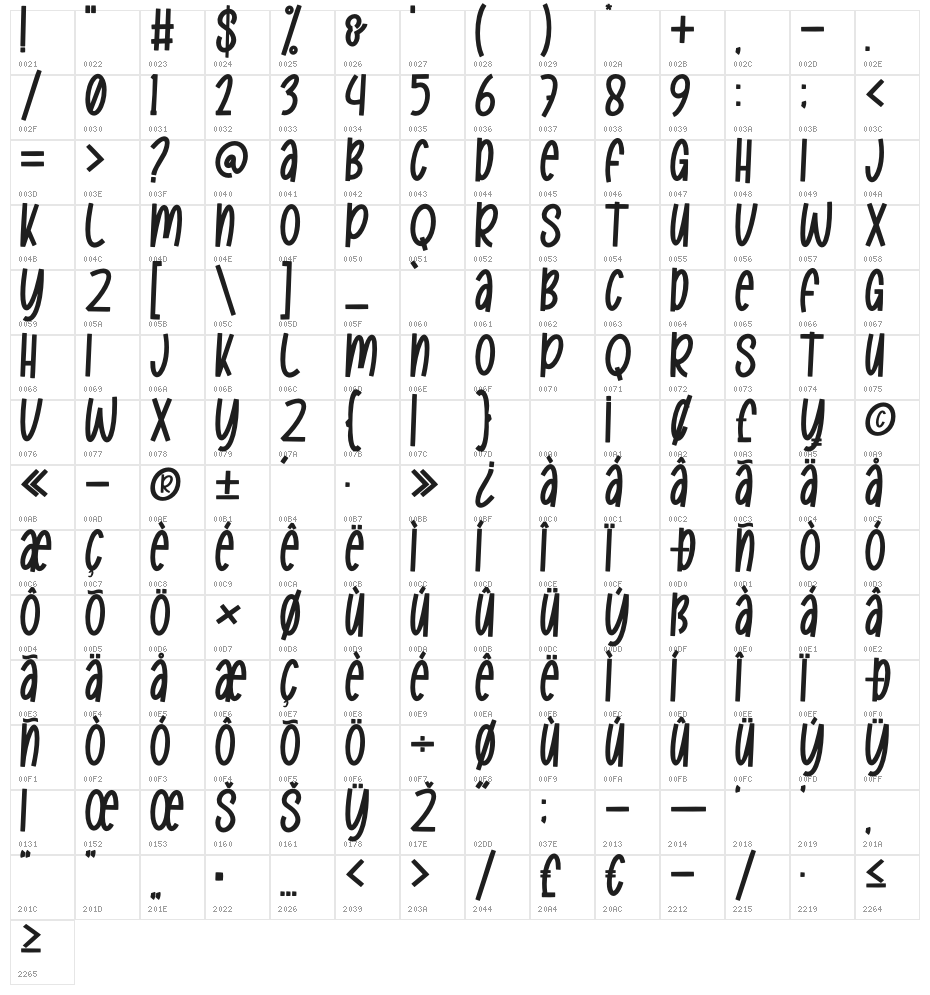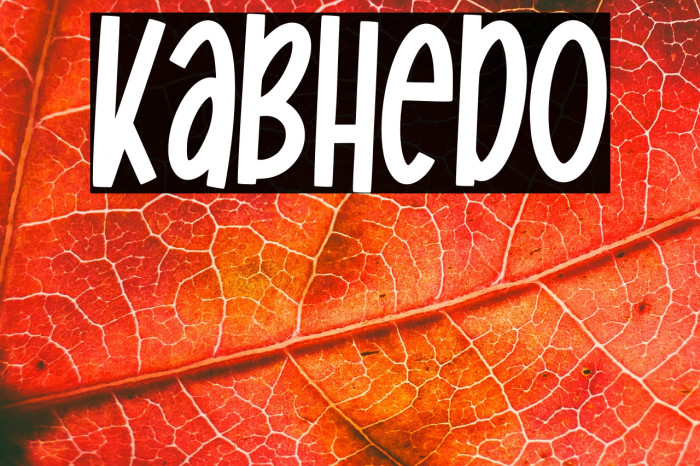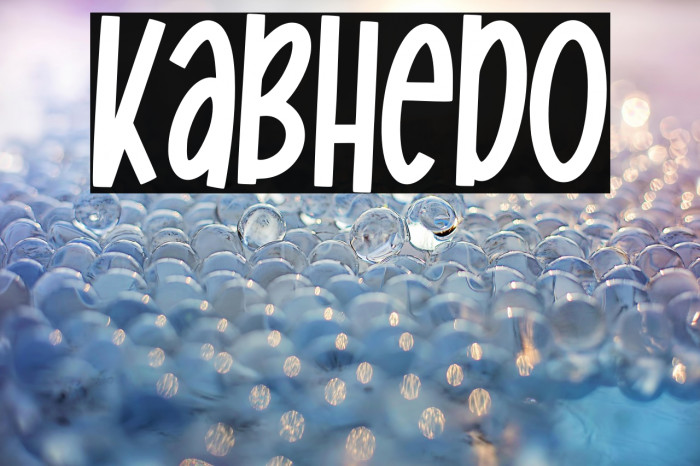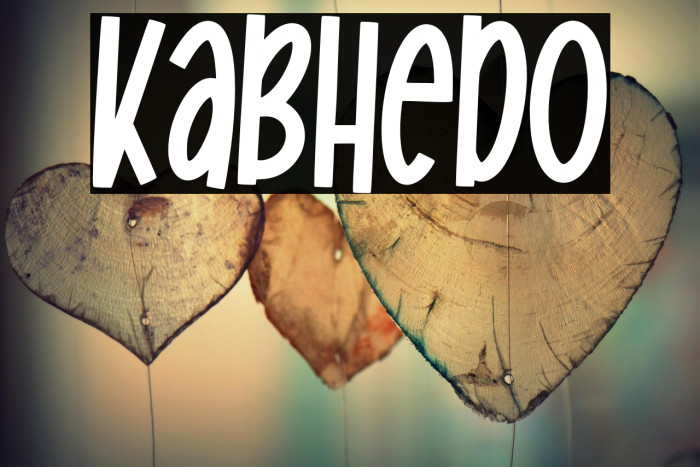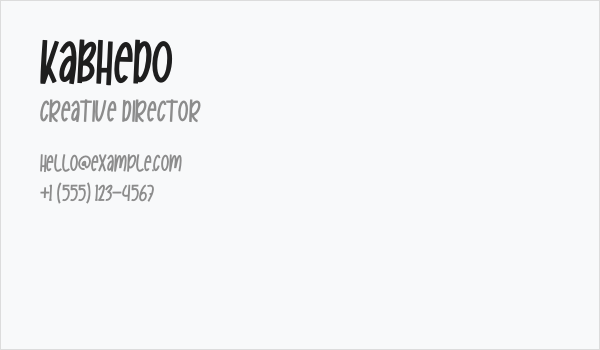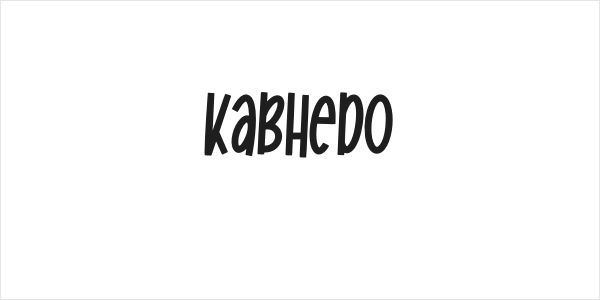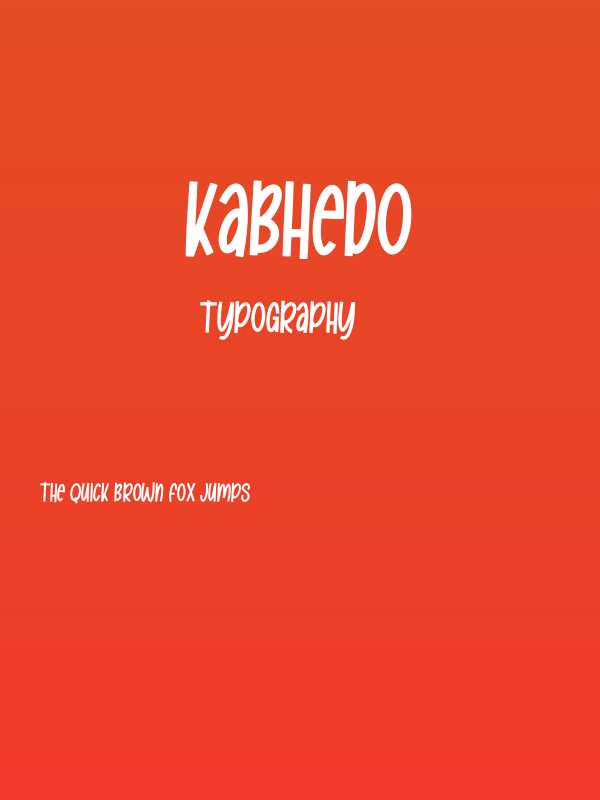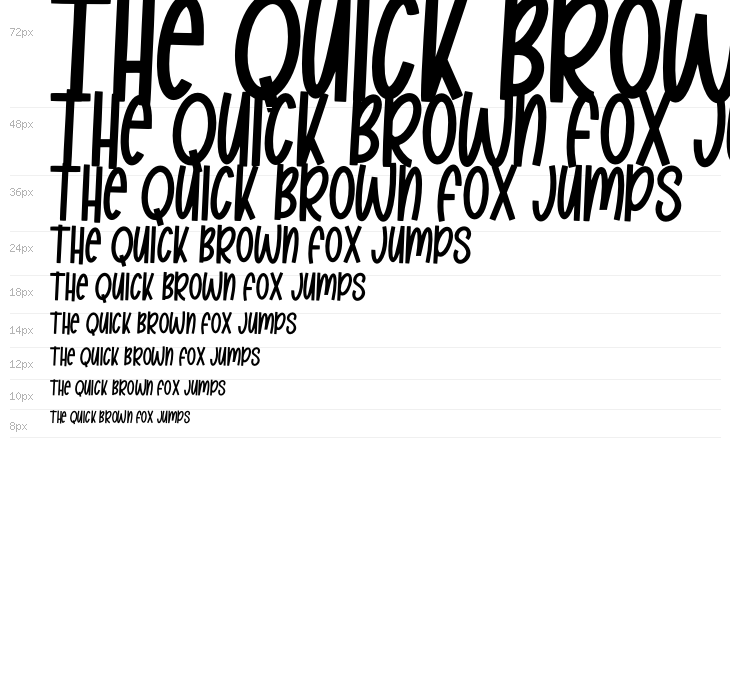
Kabhedo Font
Kabhedo Description
This font features a bold and playful handwritten style with a slightly condensed appearance. The letters are characterized by their tall, narrow forms and smooth, flowing curves, giving it a lively and energetic feel. The uppercase and lowercase letters maintain a consistent style, with the lowercase letters mirroring the uppercase in form but with a slightly smaller size. The numbers are similarly styled, maintaining the playful and informal aesthetic. Special characters are included, matching the overall design with a quirky and fun touch. This font is ideal for projects that require a personal and approachable tone, such as children's books, casual branding, or creative posters.
| Overall Style | Playful, Energetic, Informal |
| Proposed Projects | Ideal for children's books, casual branding, creative posters, and playful designs. |